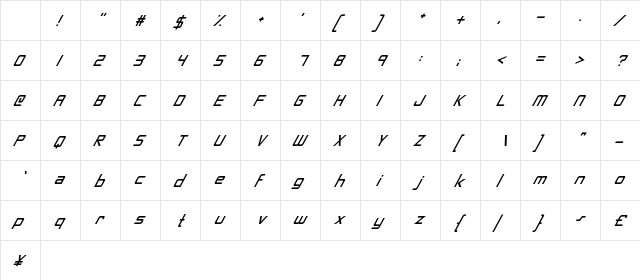
Complete Neon Nanoborg Italic glyph index. Displaying only characters natively supported by Neon Nanoborg Italic font.
Neon Nanoborg has a distinctly futuristic character, with geometric precision and clean angles that feel at home in technology, gaming, and sci-fi contexts. The slanted form adds forward momentum and visual energy.